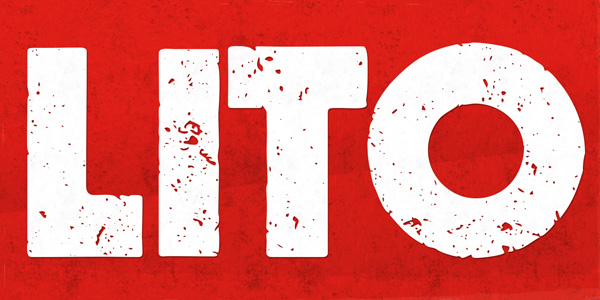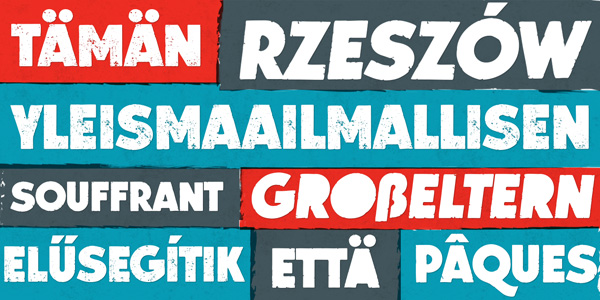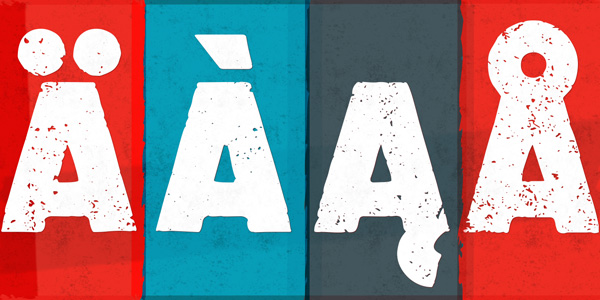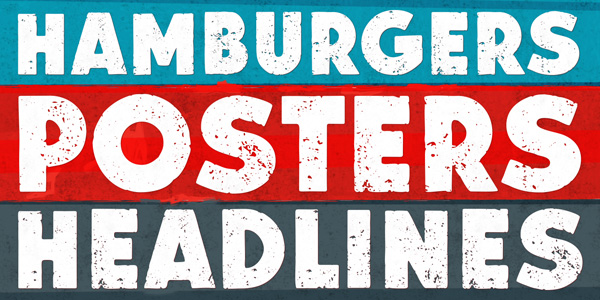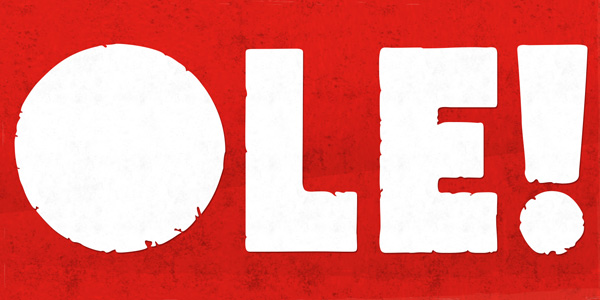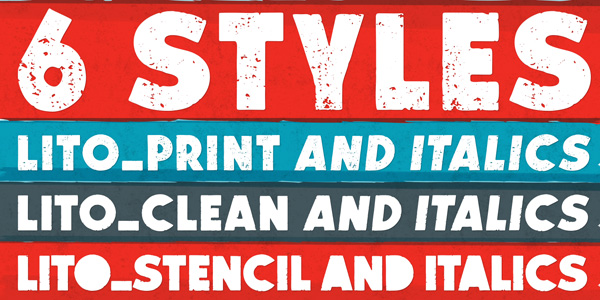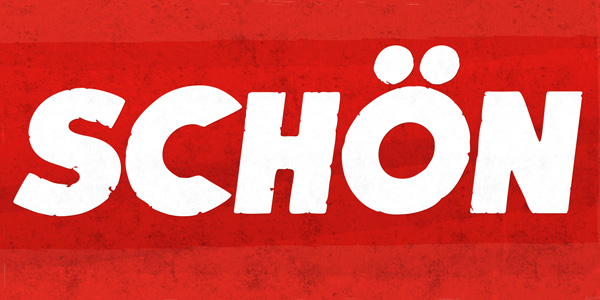
Lito – a grungy bold typeface by Mateusz Machalski
Lito Type Family.
Lito is a grungy and bold typeface designed by Mateusz Machalski (Font Publisher: Borutta). The complete font family consists of 6 different styles. This used-look typeface works great in eye-catching headlines or slogans.